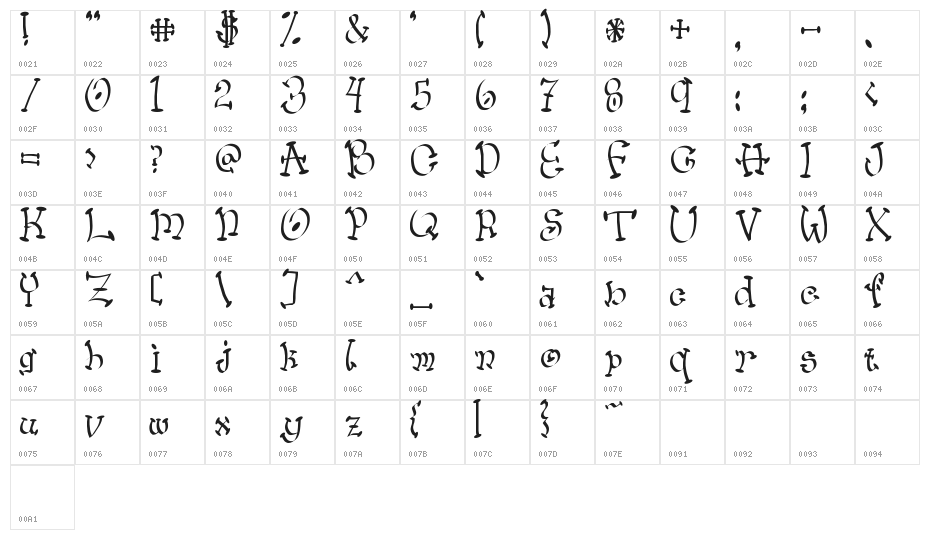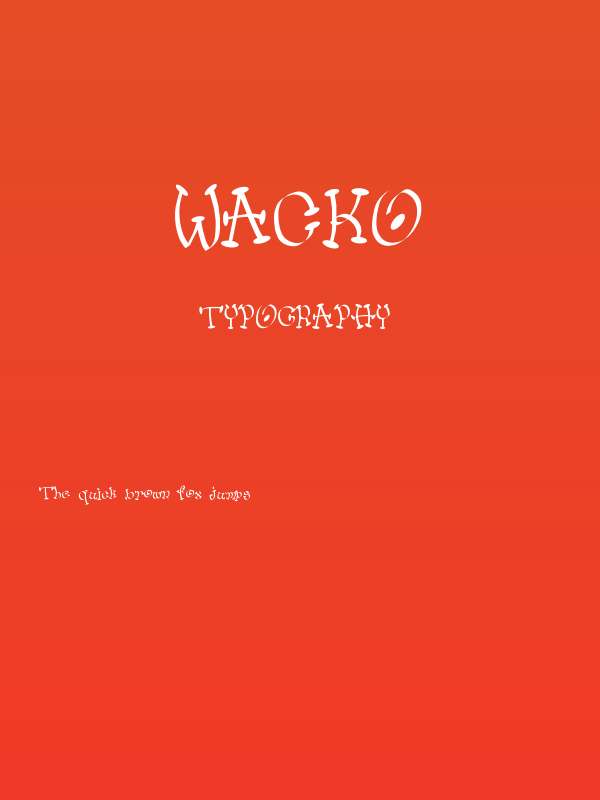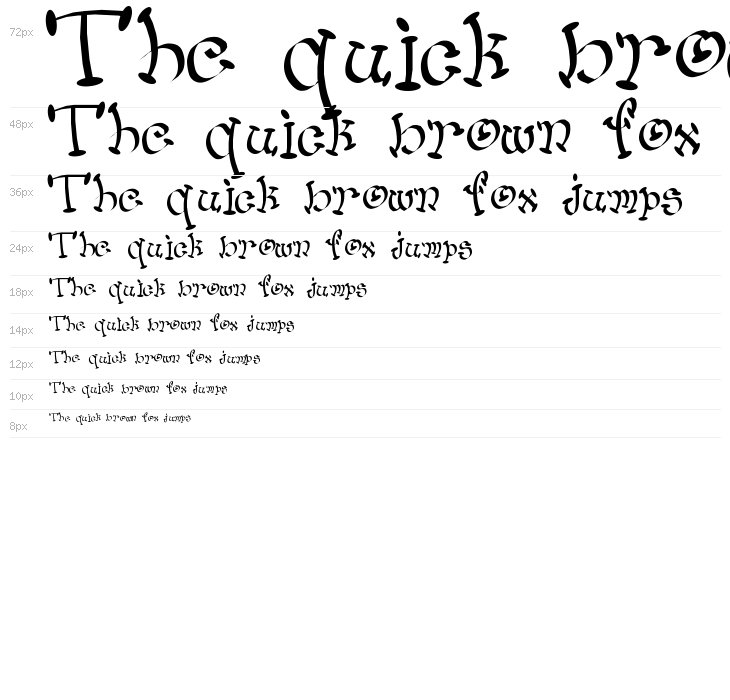
Wacko Font
Wacko Description
This font features a whimsical and playful design with exaggerated curves and unique character shapes. The uppercase letters are bold and dynamic, each with distinct flourishes that give them a lively appearance. The lowercase letters maintain this playful style, with some characters featuring unexpected twists and turns. Numbers are equally animated, with varying stroke thicknesses that add to the font's quirky charm. Special characters are creatively designed, enhancing the overall eccentric feel. This font is perfect for projects that require a fun and unconventional look.
| Proposed Projects | Ideal for children's book covers, playful branding, party invitations, and creative posters. |